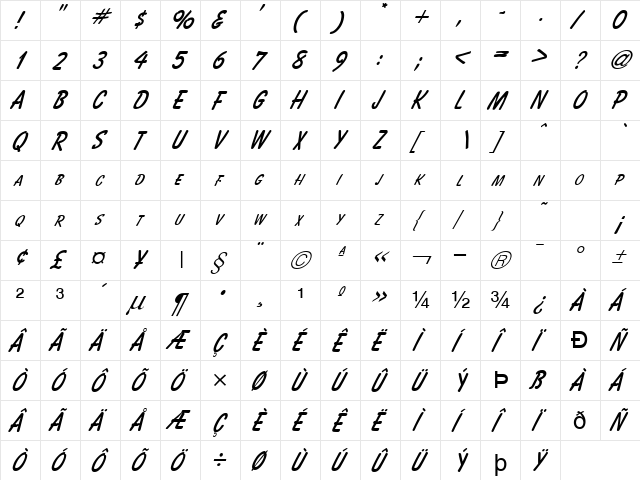
Bassett Italic
Design Context for Bassett Typeface
Bassett takes a measured approach to typography — its balanced proportions and neutral character make it a reliable workhorse for both digital and print work. The slanted form adds forward momentum and visual energy.
Pro Tip: Use Bassett for emphasis, pull quotes, and subheadings where its slanted energy can add rhythm to the layout.